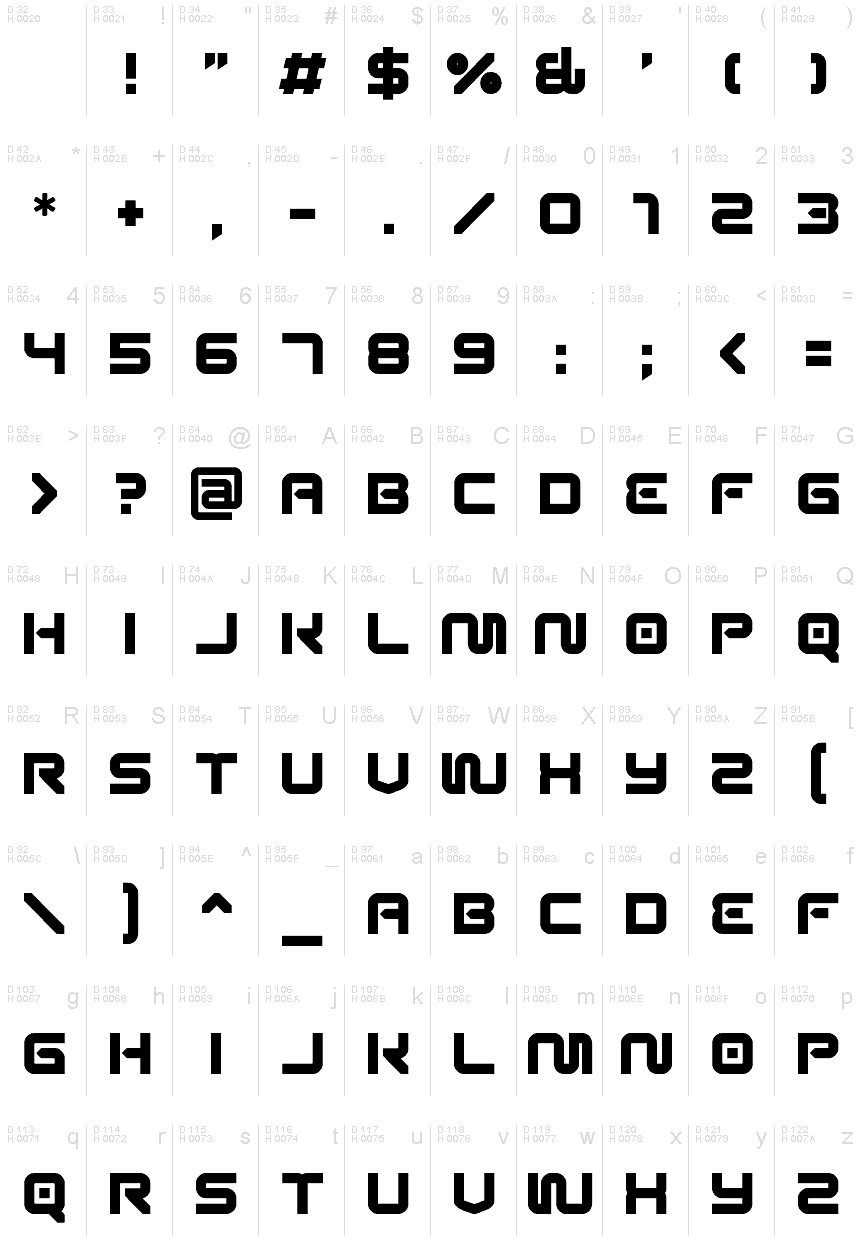
MOREKS
Moreks font from Enxyclo Studio is a structured display typeface with an industrial and technical feel. It has an air of modernism and sophistication combined with an artistic design that makes each character appear as a creative glyph. The futuristic font style plays as much with the sharp lines as it does with geometric shapes.
The wide build of Moreks font means it can be best applied in large titles or separate keywords across many project types. Among the possibilities are video game covers, TV graphics, movie posters, book covers, musical album artworks, gig posters, billboard advertisements, and indoor store signages.